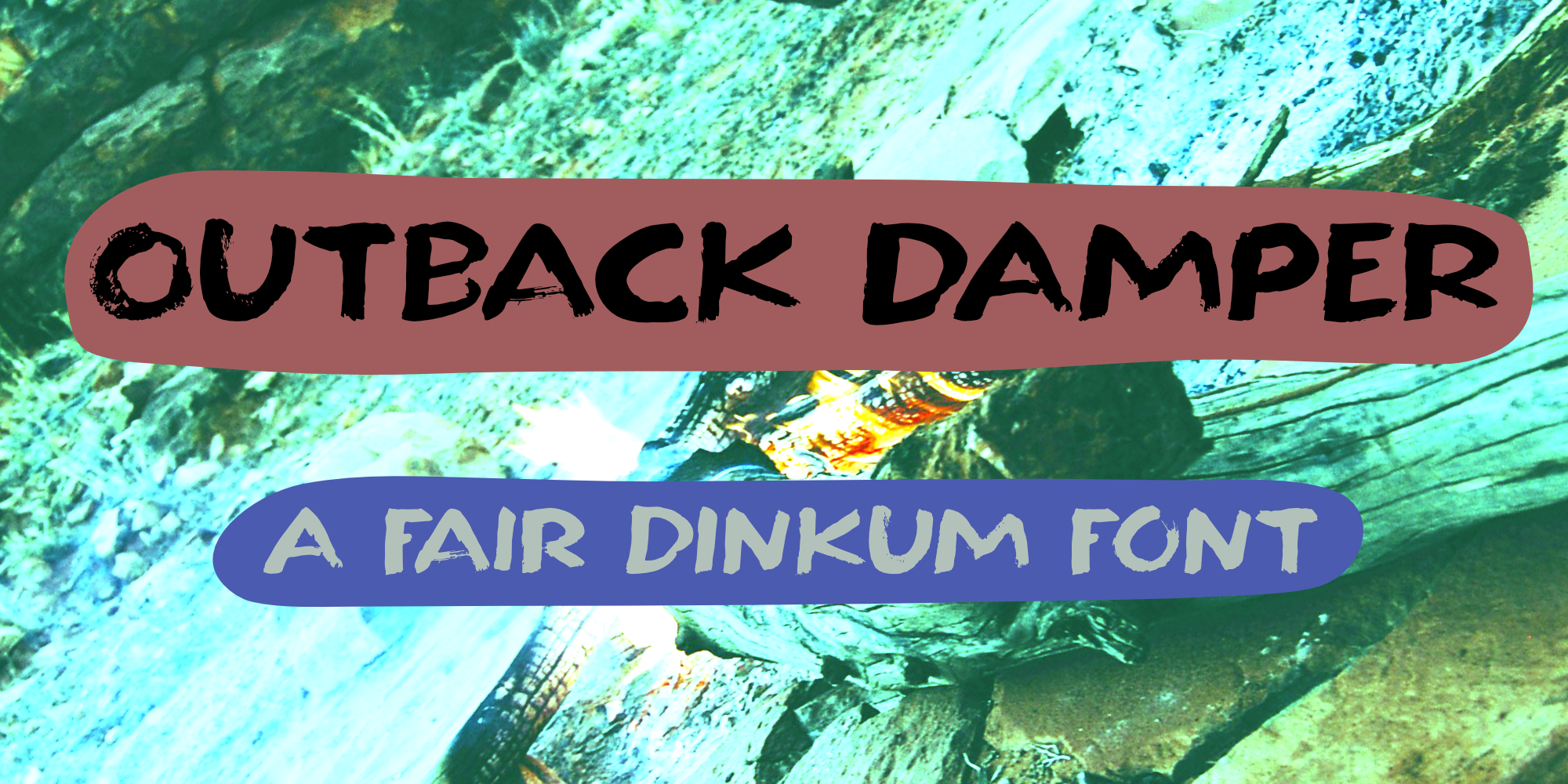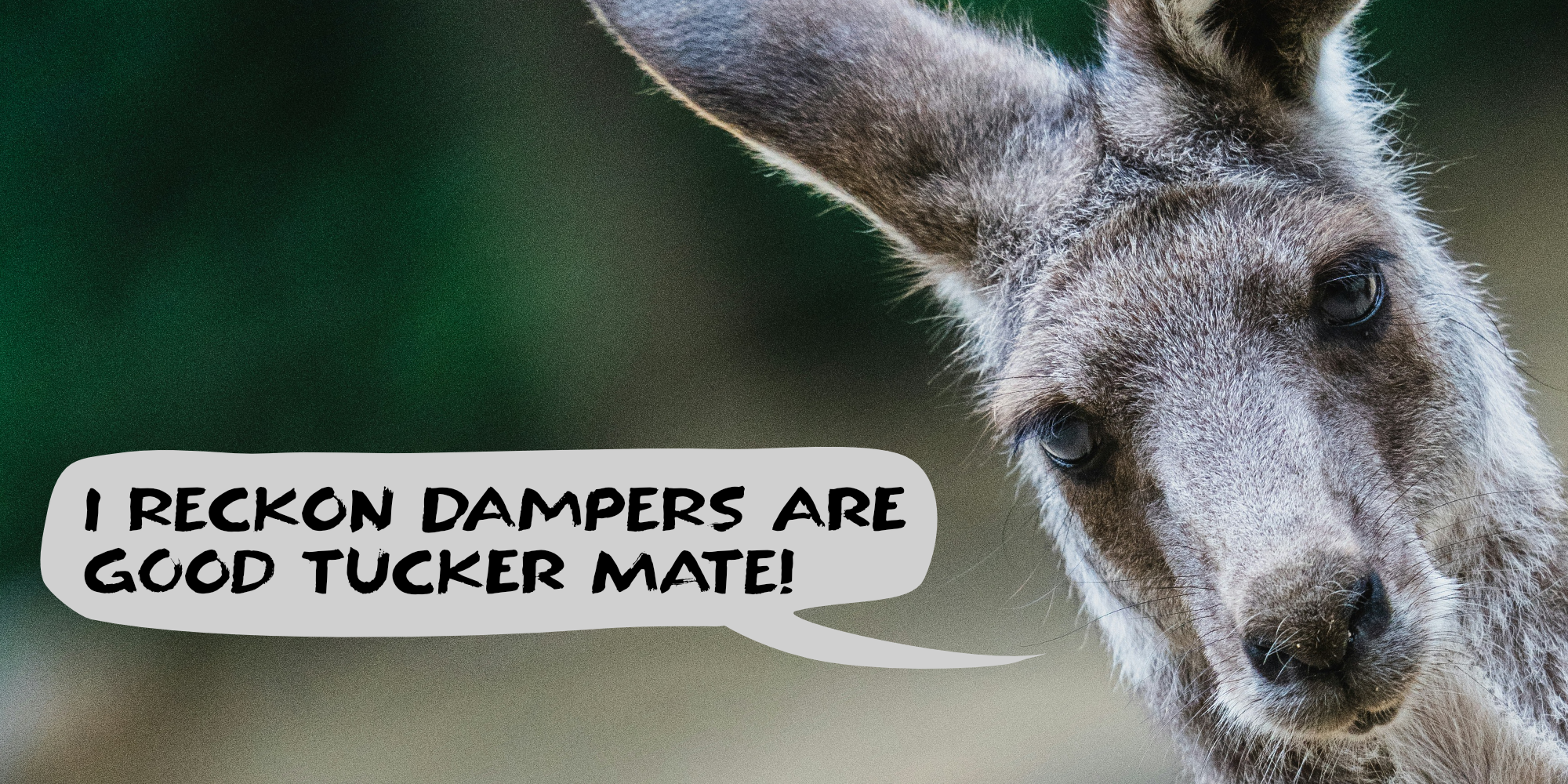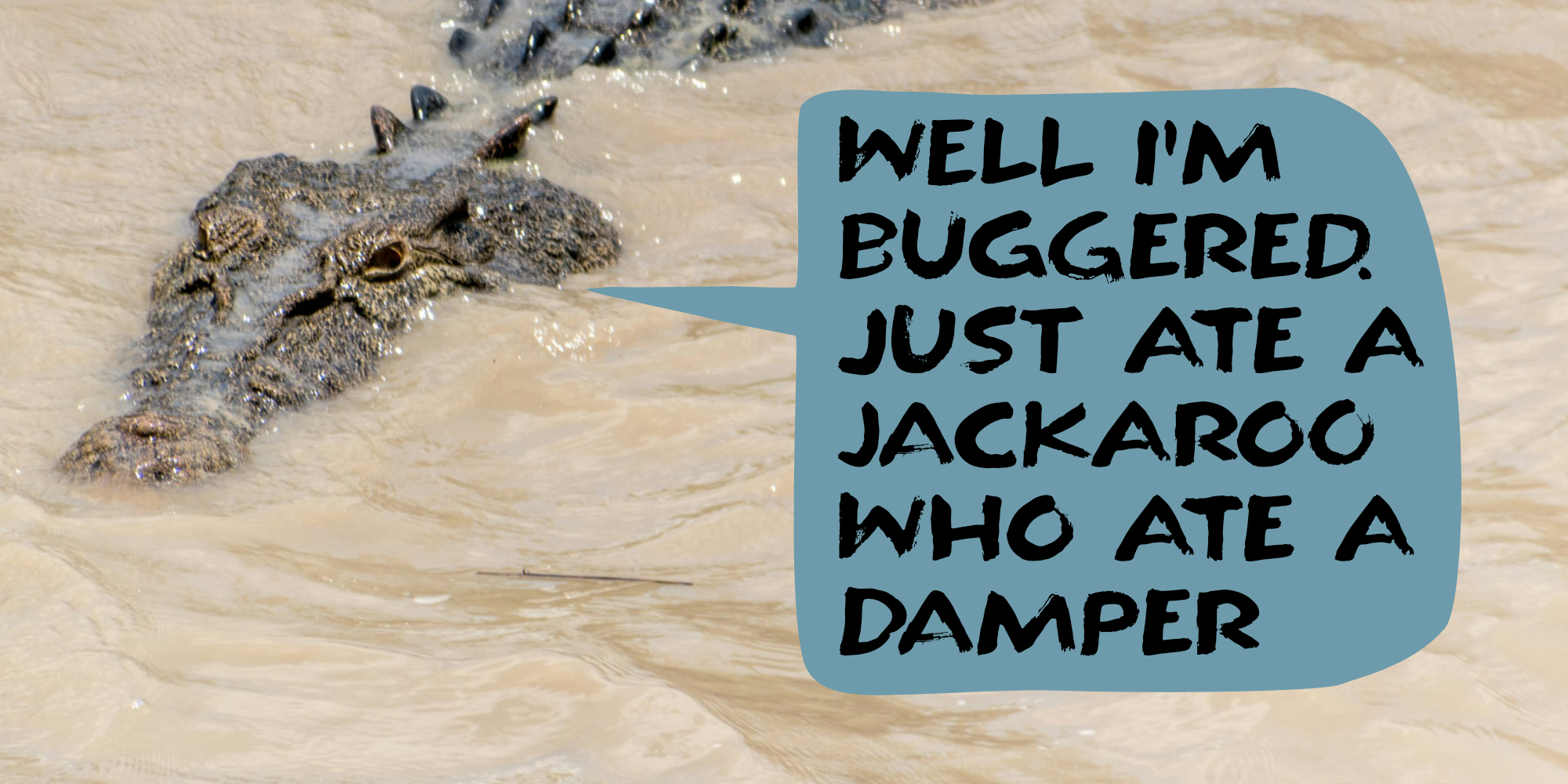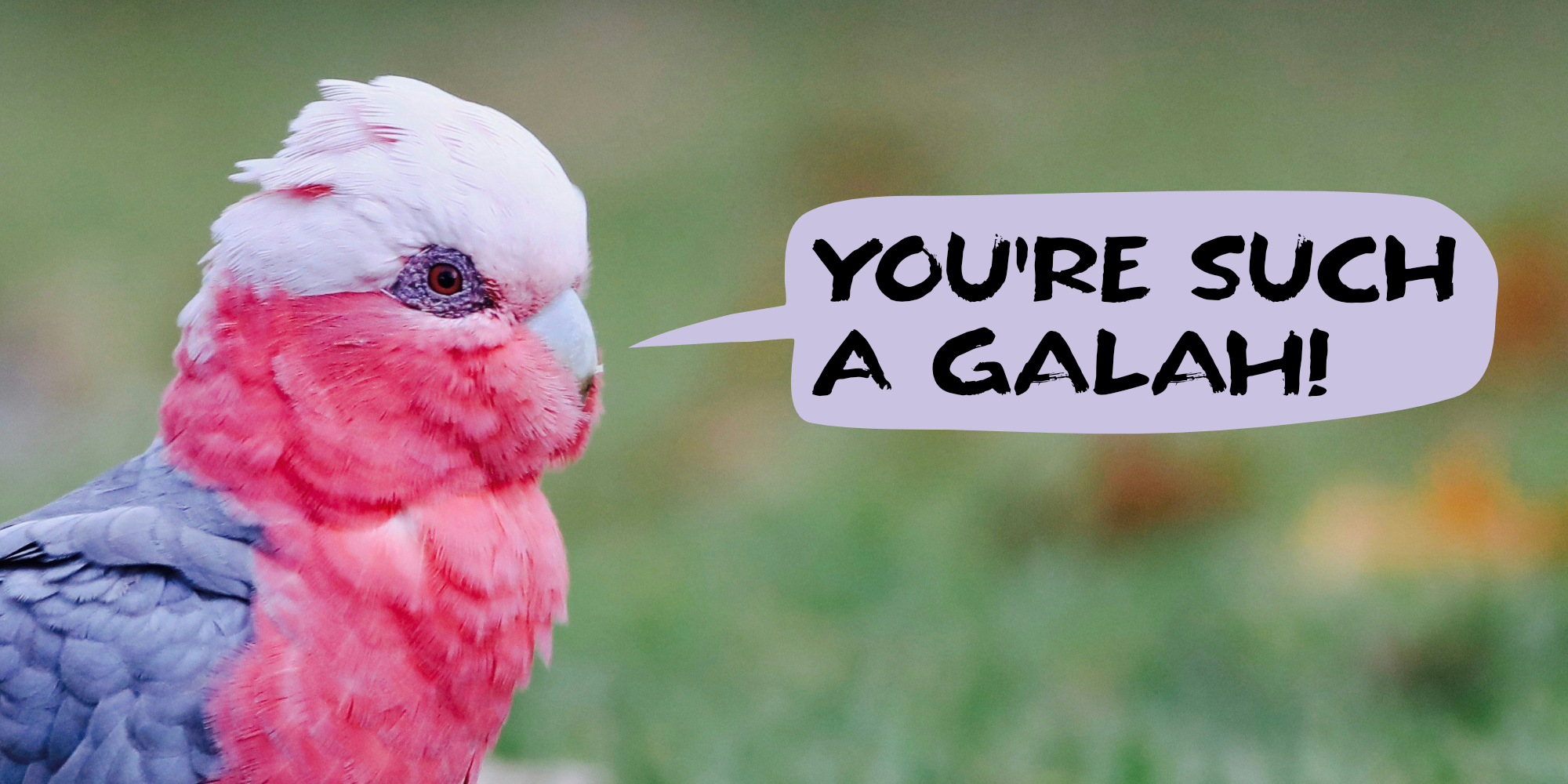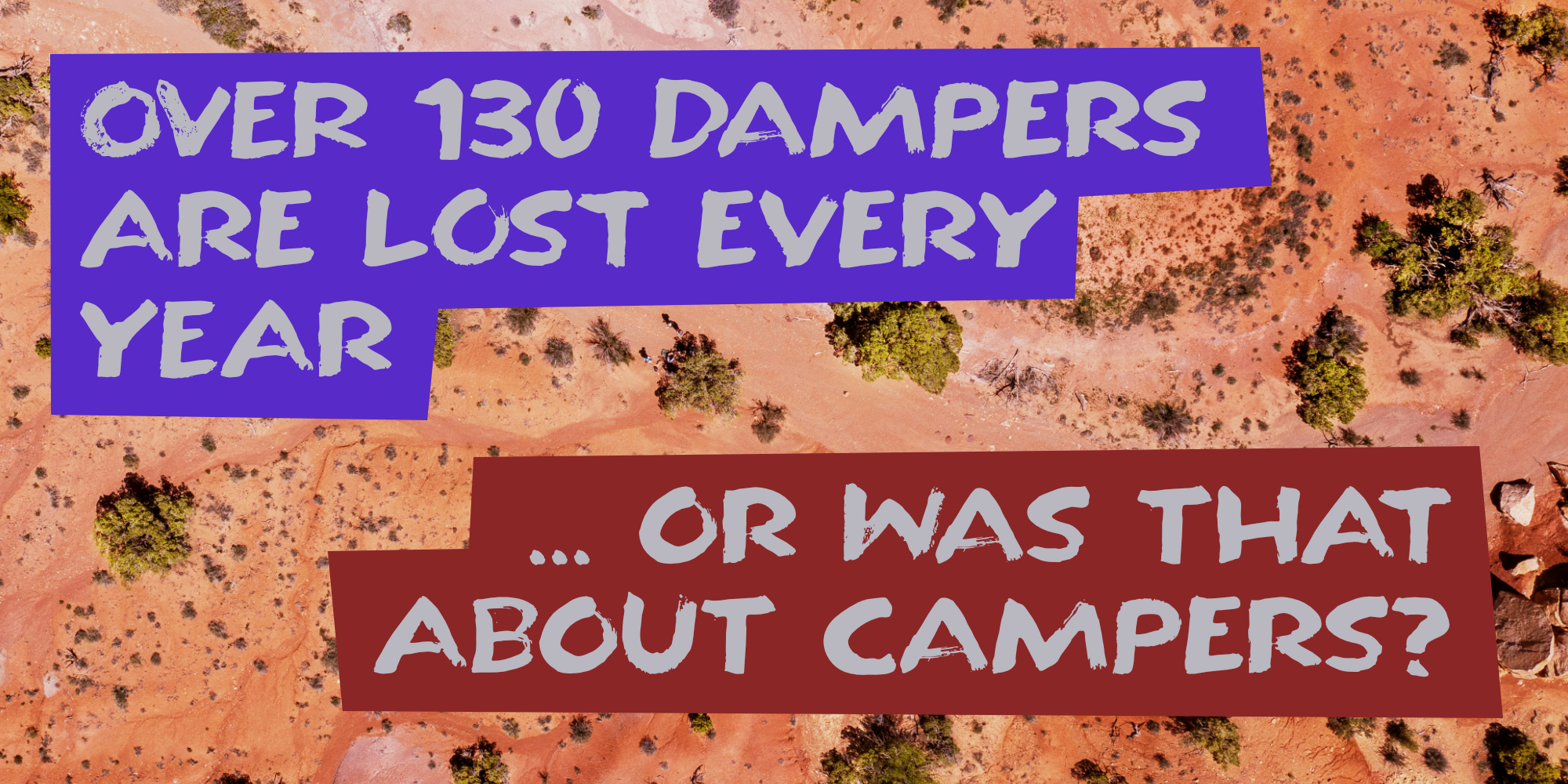
Outback Damper (2 fonts)
Outback Damper was made with a brush and ink. It comes with a set of alternates for the lower case letters and extensive language support.